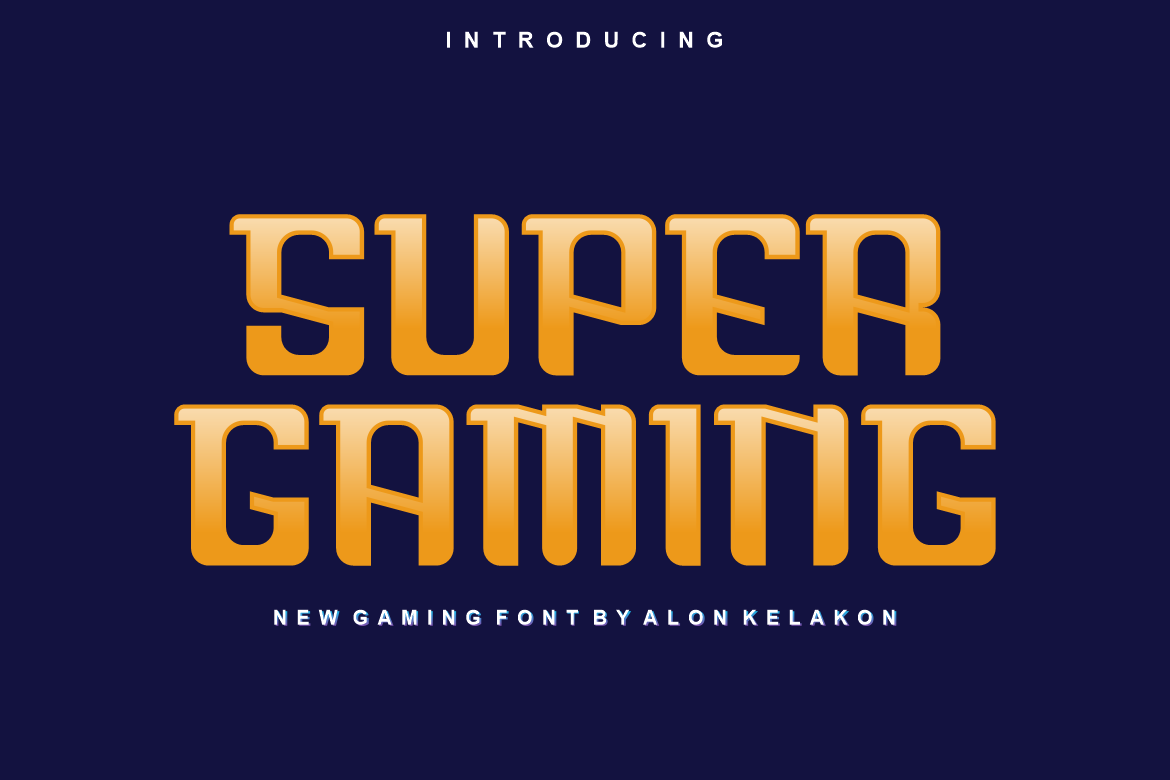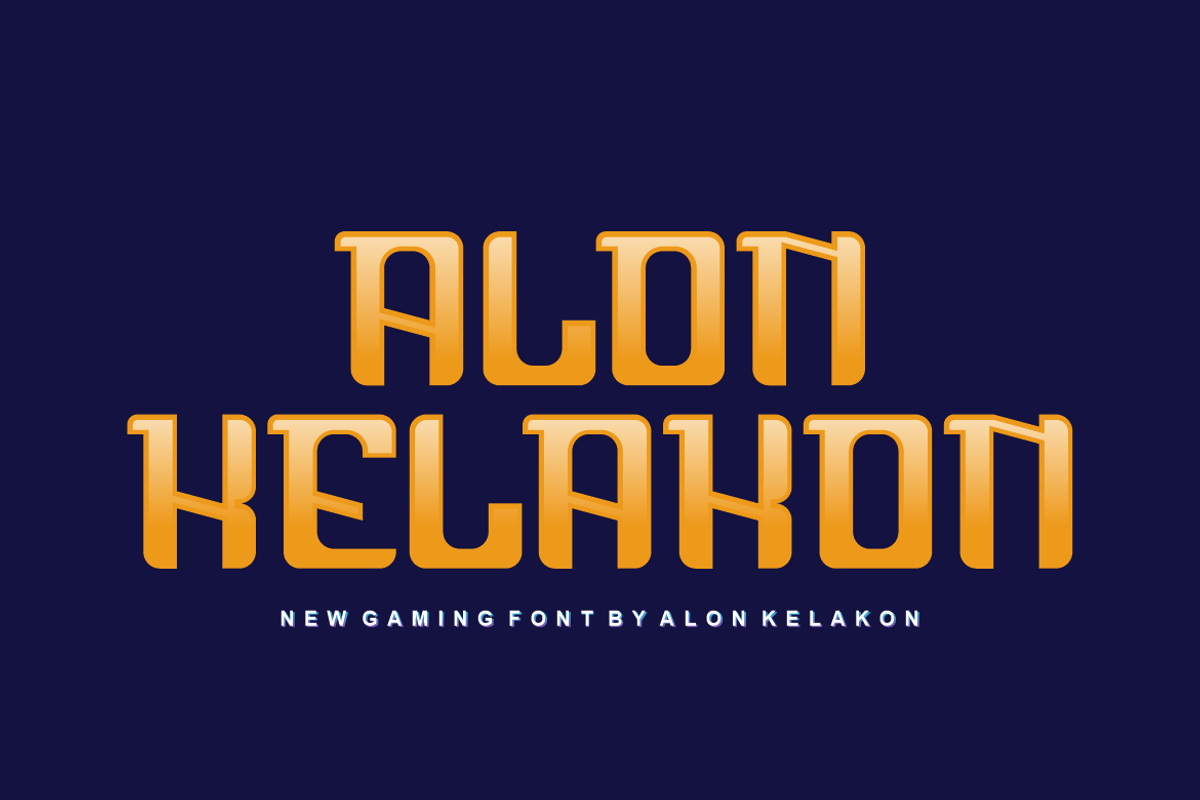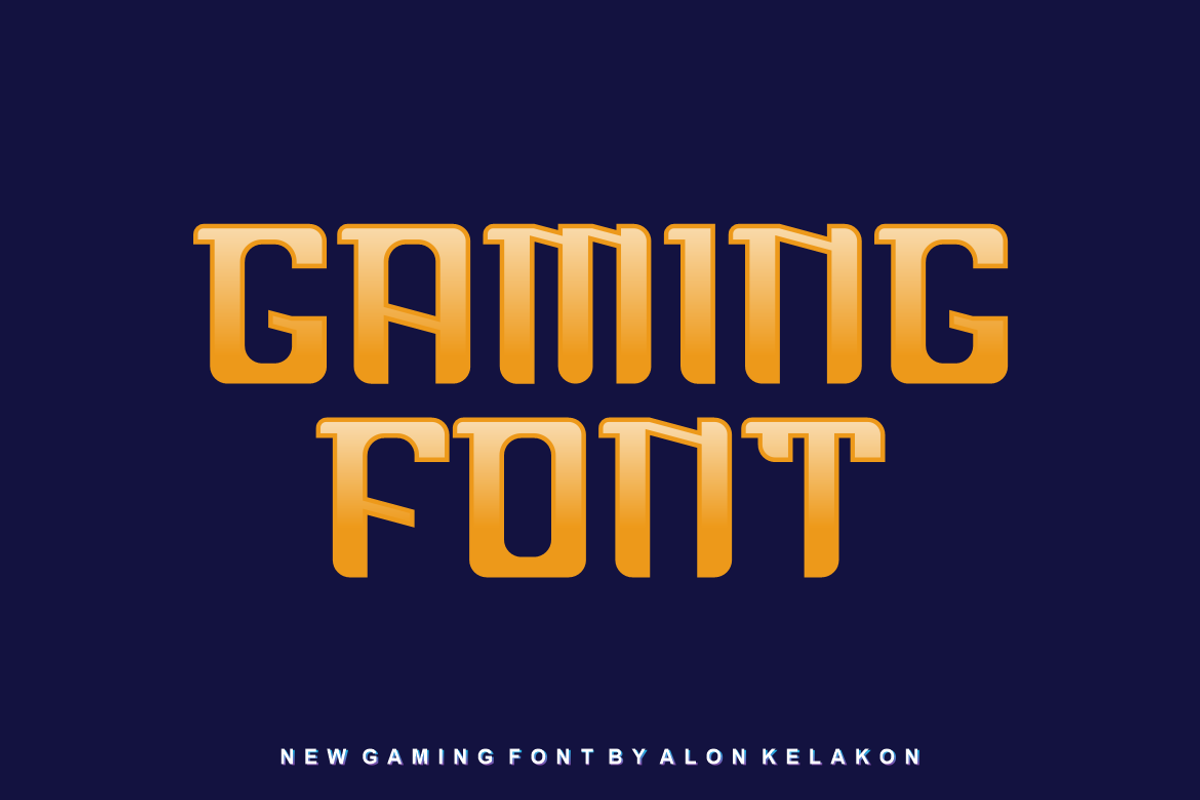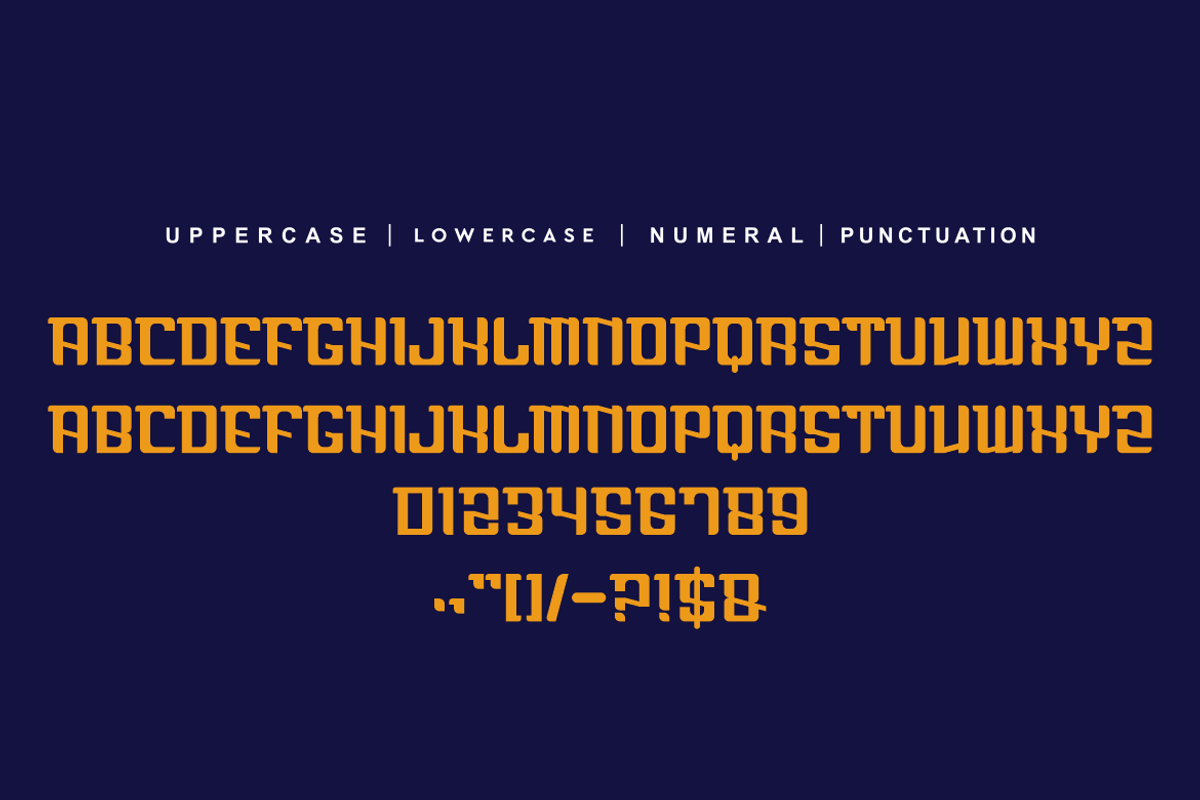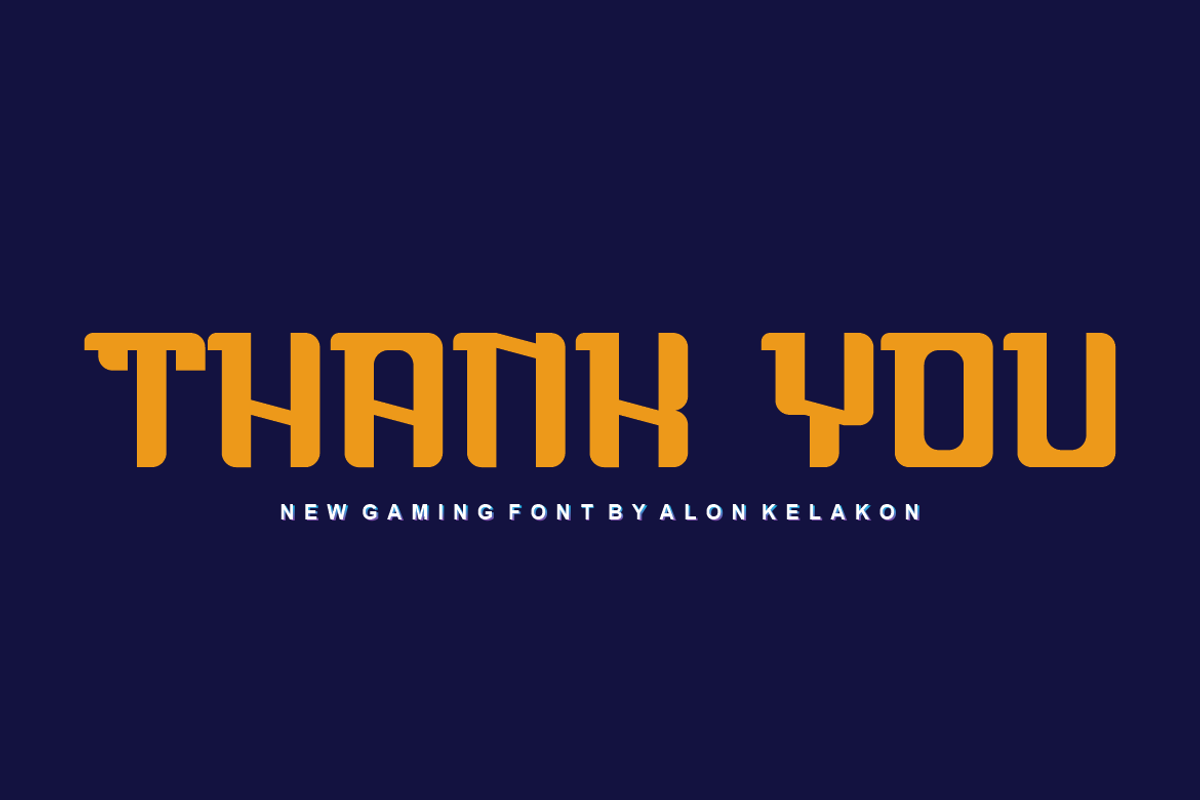
Super Gaming Font
Super Gaming Font Font is unique . Ready to use for your design like labeling, clothing, movie sceen, poster, movie title, gigs, album covers, logos, and much more.